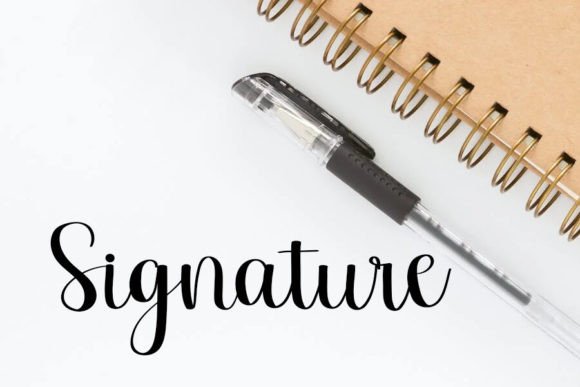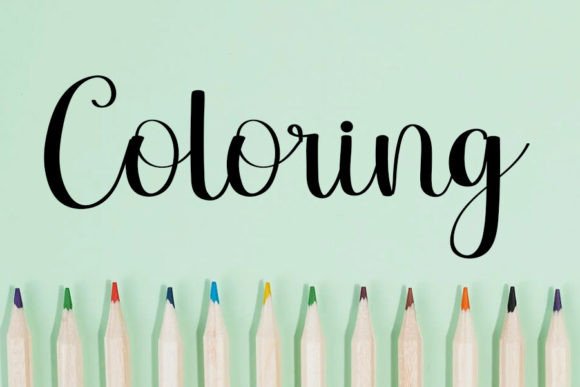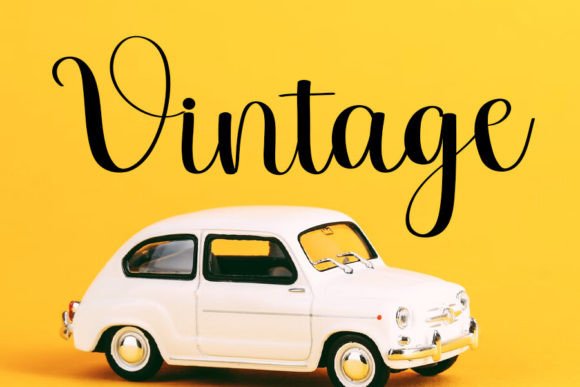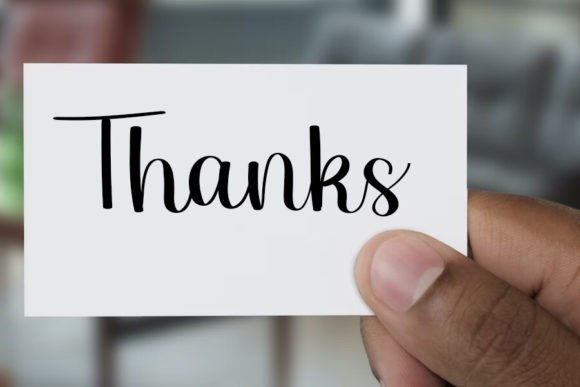
Introducing Heart Font: The Sweet and Friendly Handwritten Font for Your Creative Projects
Are you a designer, crafter, or DIY enthusiast looking for a font that can add a touch of warmth and personality to your projects? Look no further than Heart Font, a sweet and friendly handwritten font that’s perfect for a wide range of designs. With its natural and unique style, Heart Font is incredibly versatile and can be used in various creative projects, from greeting cards and invitations to branding and advertising materials.
The Characteristics of Heart Font
Heart Font is a handwritten font that exudes a sense of friendliness and approachability. Its natural, cursive style makes it perfect for designs that require a personal touch. The font’s unique characteristics include:
- Natural and fluid strokes: Heart Font features smooth, flowing strokes that give it a organic and handmade feel.
- Unique letterforms: Each letter in the Heart Font has its own distinct character, making it perfect for designs that require a personal touch.
- High legibility: Despite its handwritten nature, Heart Font is highly legible, making it suitable for use in a variety of contexts, from body text to headings.
The Versatility of Heart Font
One of the best things about Heart Font is its incredible versatility. Its natural and unique style makes it fitting for a large pool of designs, including:
- Greeting cards and invitations: Add a personal touch to your greeting cards and invitations with Heart Font’s warm and friendly style.
- Branding and advertising: Use Heart Font to create unique and memorable brand identities that stand out from the crowd.
- Social media graphics: Add a touch of personality to your social media graphics, from Facebook posts to Instagram stories.
- DIY projects: Use Heart Font to add a personal touch to your DIY projects, from scrapbooking to crafting.
Why Choose Heart Font?
With so many fonts available, why choose Heart Font for your creative projects? Here are just a few reasons:
- Unique style: Heart Font’s natural and unique style sets it apart from other fonts, making it perfect for designers and crafters who want to add a personal touch to their projects.
- High-quality: Heart Font is a high-quality font that’s designed to produce crisp, clear text, even at small sizes.
Tips for Using Heart Font
Here are a few tips for getting the most out of Heart Font:
- Use it sparingly: While Heart Font is perfect for adding a personal touch to your designs, it can be overwhelming if used excessively. Use it sparingly to create a sense of balance and harmony.
- Experiment with colors: Heart Font looks great in a variety of colors, from bright and bold to soft and pastel. Experiment with different colors to find the perfect look for your design.
- Pair it with other fonts: Heart Font pairs well with a variety of other fonts, from sans-serif to serif. Experiment with different font combinations to create a unique and interesting look.
In conclusion, Heart Font is a sweet and friendly handwritten font that’s perfect for designers, crafters, and DIY enthusiasts who want to add a personal touch to their creative projects. With its natural and unique style, Heart Font is incredibly versatile and can be used in a wide range of designs. Whether you’re creating greeting cards, branding materials, or social media graphics, Heart Font is the perfect choice.